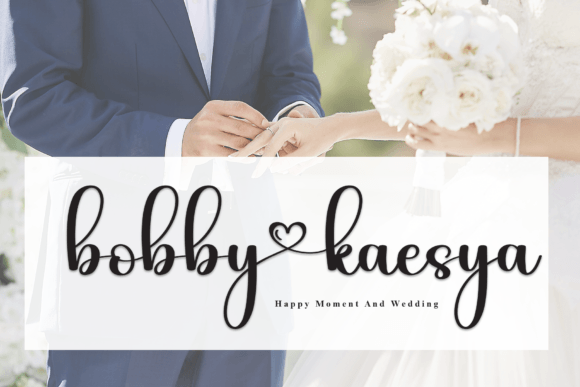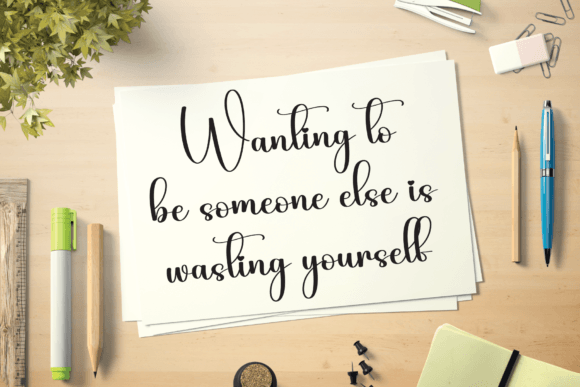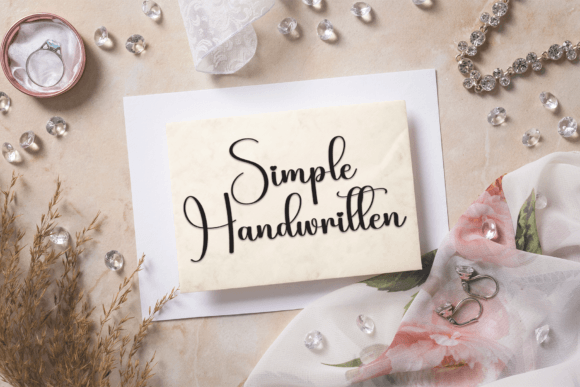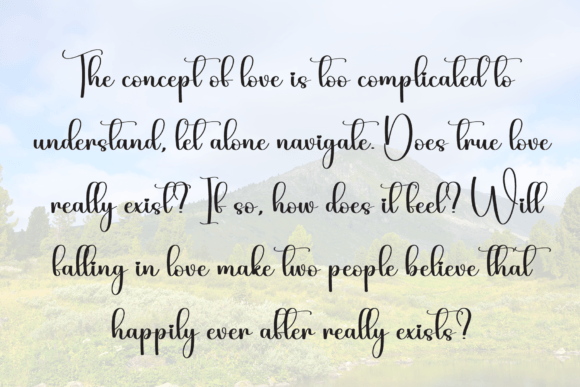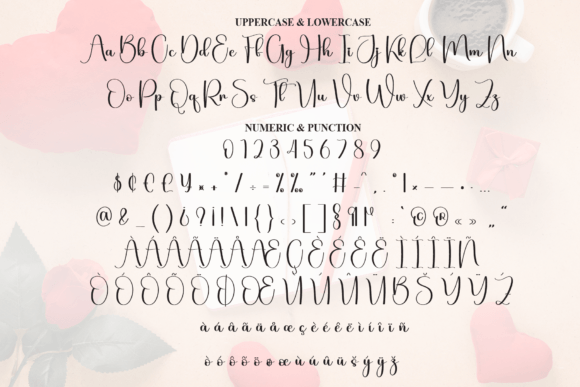
Unleashing Your Creative Voice: Discover the Allure of Diary Love Font
Have you ever been stuck in a creative rut, struggling to find the perfect font to bring your design to life? We’ve all been there – pouring over font options, searching for that elusive spark that sets our project ablaze. For designers, the right font can be the difference between a good design and a great one.
Enter the Diary Love Font, a stylish handwritten font that embodies the essence of timeless classic calligraphy. With its impeccable form and contemporary atmosphere, this font is the perfect addition to any design project. Whether you’re crafting a wedding invitation, designing a branding campaign, or creating a social media post, the Diary Love Font will add a touch of elegance and sophistication to your work.
As a valuable resource for designers, the Diary Love Font offers a unique opportunity to elevate your creative voice and leave a lasting impression on your audience.
Key Features of Diary Love Font
- Font Size: Offers 6 different font sizes, including Regular, Italic, Bold, Bold Italic, Light, and Light Italic, to cater to diverse design needs.
- Resolution: Supports high-resolution designs with a resolution of up to 300 DPI, ensuring crisp and clear text even at larger sizes.
- Unique Characteristics: Features a handwritten, cursive script with a personal and romantic touch, making it ideal for love-themed designs, wedding invitations, and greeting cards.
Diary Love Font Review
I recently had the chance to work with the “Diary Love Font” and I must say it’s a unique and quirky addition to any design project. ✨ The font’s hand-drawn style and playful feel make it perfect for creating a sense of nostalgia and whimsy in your designs.
The font’s versatility is another standout feature – it can be used for a wide range of projects, from children’s books to romantic wedding invitations. ✨ The font’s flexibility in terms of size and color also makes it easy to adapt to different design styles.
While the “Diary Love Font” has many great qualities, there are a few limitations to be aware of:
- ⚠️ The font may not be suitable for formal or professional projects, as its playful style may come across as unprofessional.
- ⚠️ The font’s size and clarity may be affected by the resolution and quality of the design file.
Overall, I think the “Diary Love Font” is a great addition to any designer’s toolkit. While it may not be suitable for every project, its unique style and versatility make it a great choice for designers looking to add some personality to their designs.
Diary Love Font is commonly used in:
- Journaling and diary entries
- Scrapbooking and memory-keeping
These use cases showcase the font’s romantic and whimsical nature, making it perfect for personal and creative projects.
Alternatives to Diary Love Font
Great Vibes Font is a beautiful, elegant script font perfect for creating a romantic and whimsical atmosphere. It’s ideal for use in wedding invitations, greeting cards, and other designs where a touch of elegance is required.
Compared to Diary Love Font, Great Vibes Font has a more refined and sophisticated look, making it suitable for more formal designs. While Diary Love Font is more playful and cursive, Great Vibes Font is more flowing and elegant.
Can I customize the Diary Love Font for my specific project?